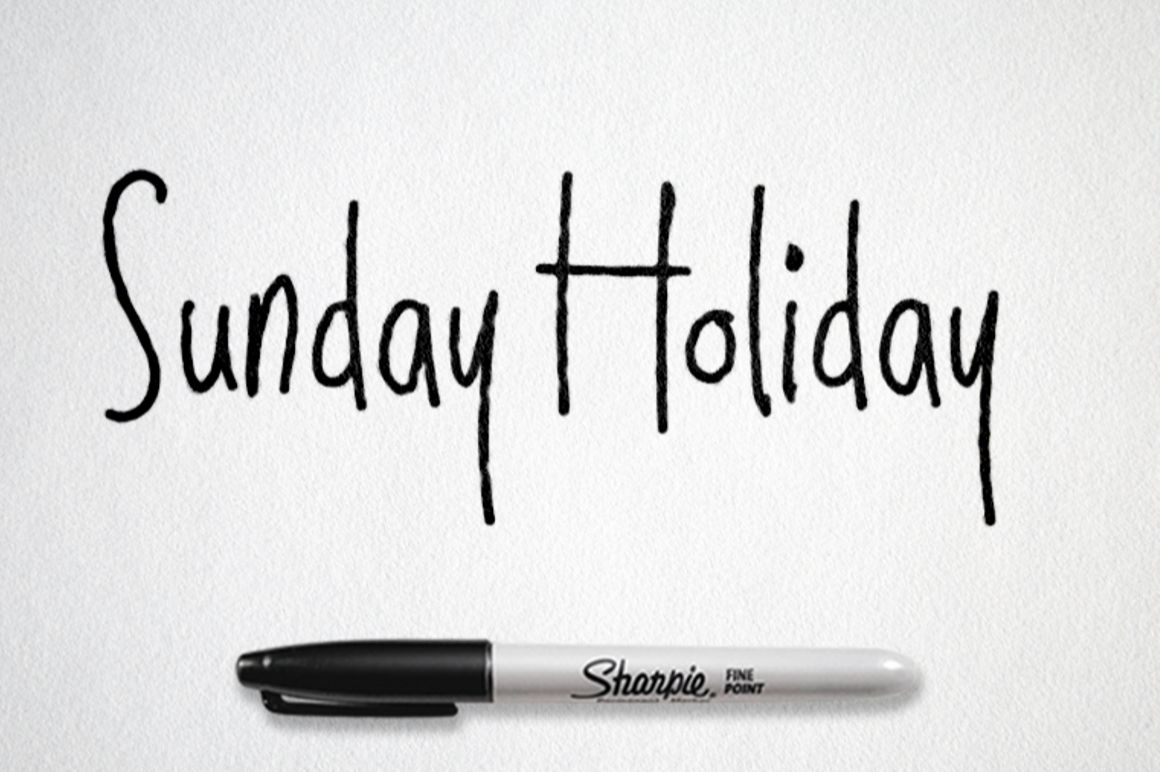
Sunday Holiday Font – Freebie
Sunday Holiday Free Commercial Font
It comes with many opentype feature, upper and lower case standard character, punctuation and numerals, multilingual characters, ligatures, stylistic alternates, and many more glyph.